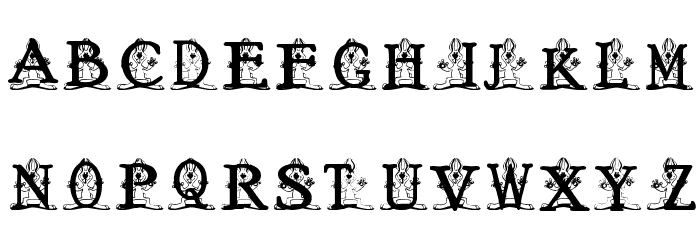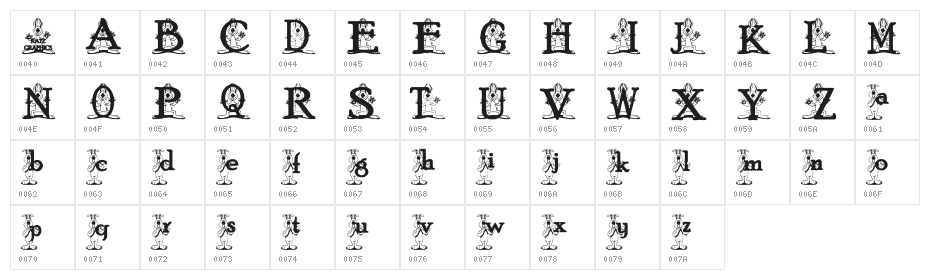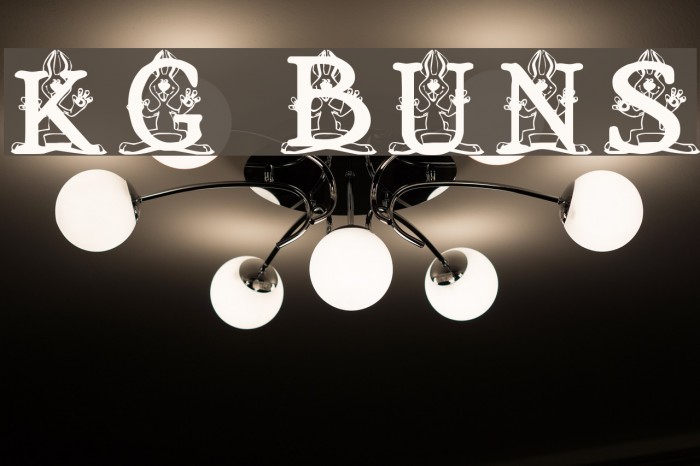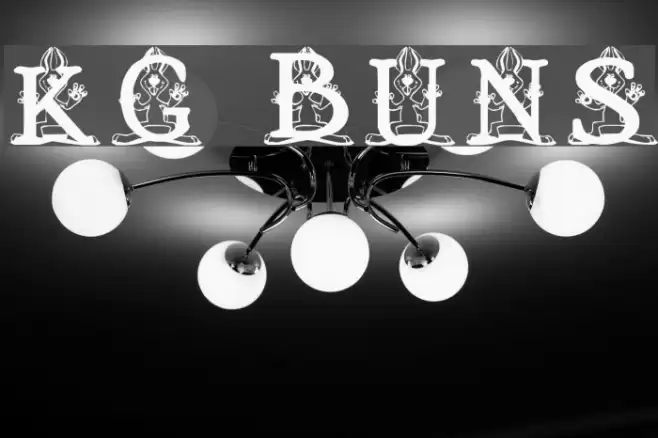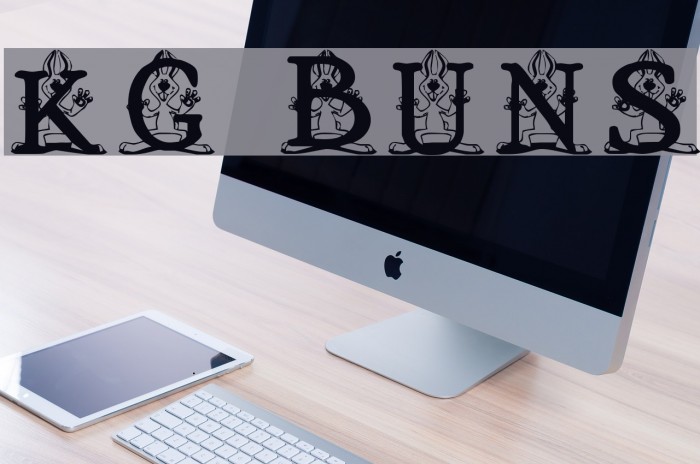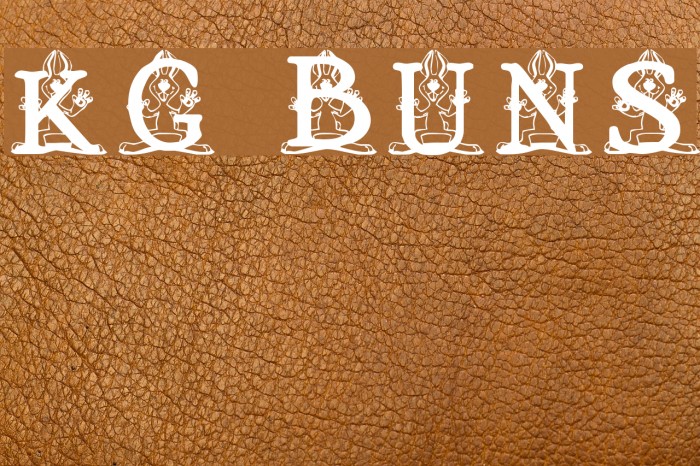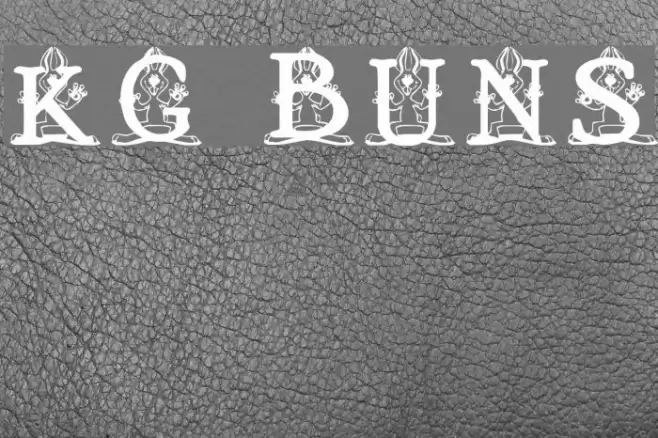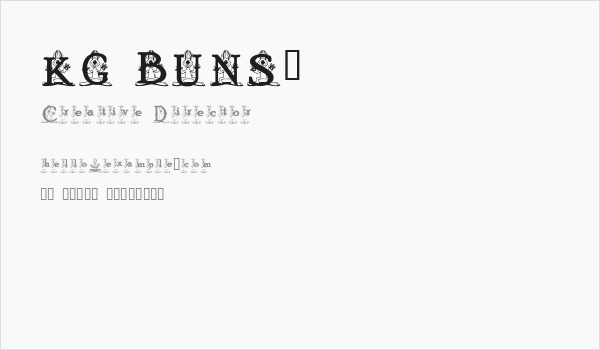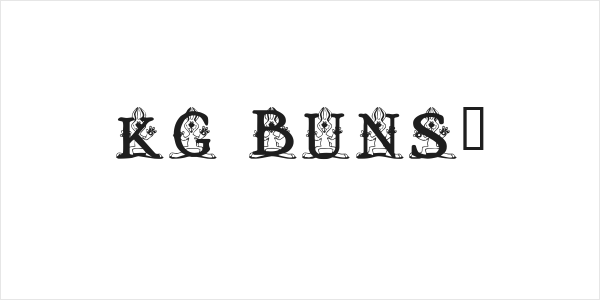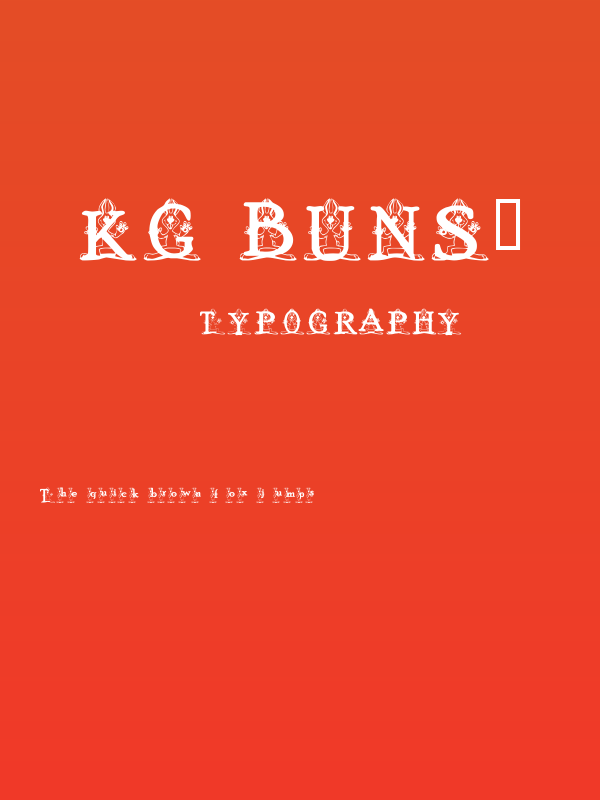
KG BUNS1 Font
KG BUNS1 Description
This font features a whimsical and playful design, incorporating cartoonish rabbit figures into each letter. The characters are bold and decorative, with each letter being supported by a rabbit standing on its hind legs. The font is highly stylized, making it suitable for creative and fun projects. The uppercase and lowercase letters maintain a consistent theme, with the rabbits adding a unique and humorous touch. The numbers and special characters also follow this playful design, ensuring a cohesive look across all elements.
| Proposed Projects | Ideal for children's books, playful branding, party invitations, and any project requiring a whimsical touch. |